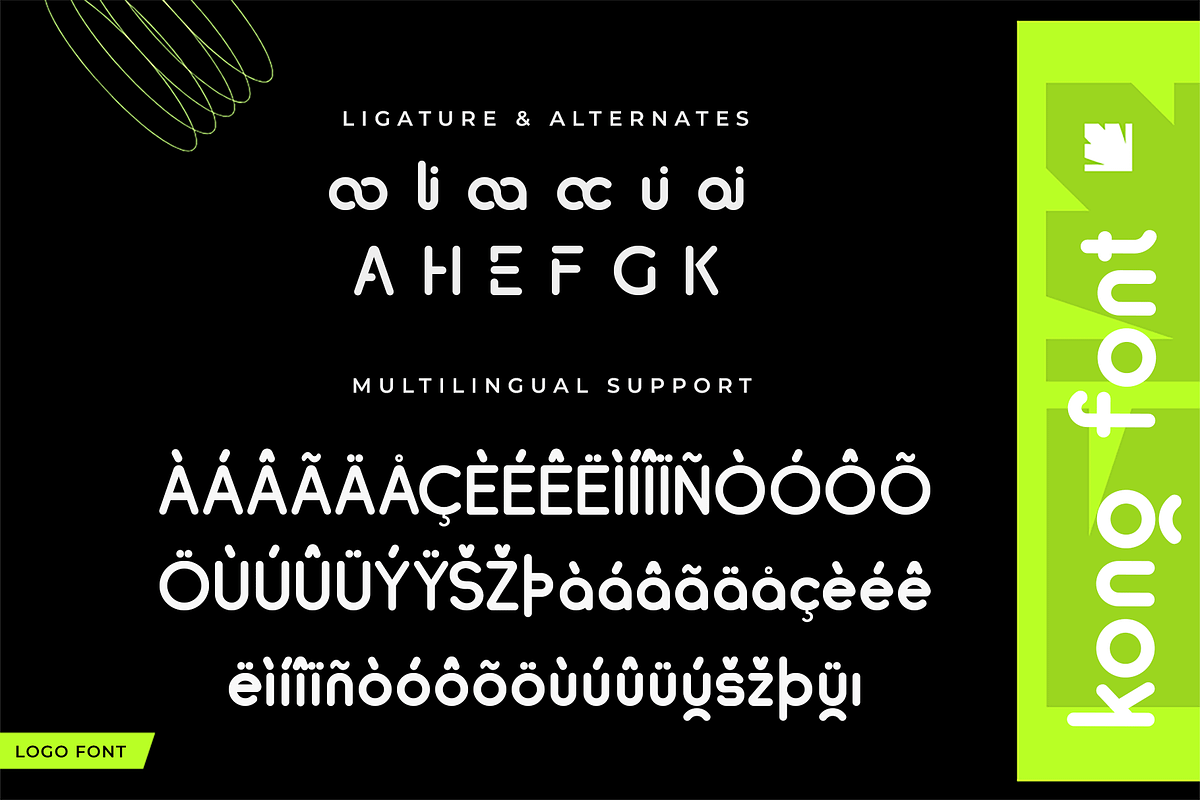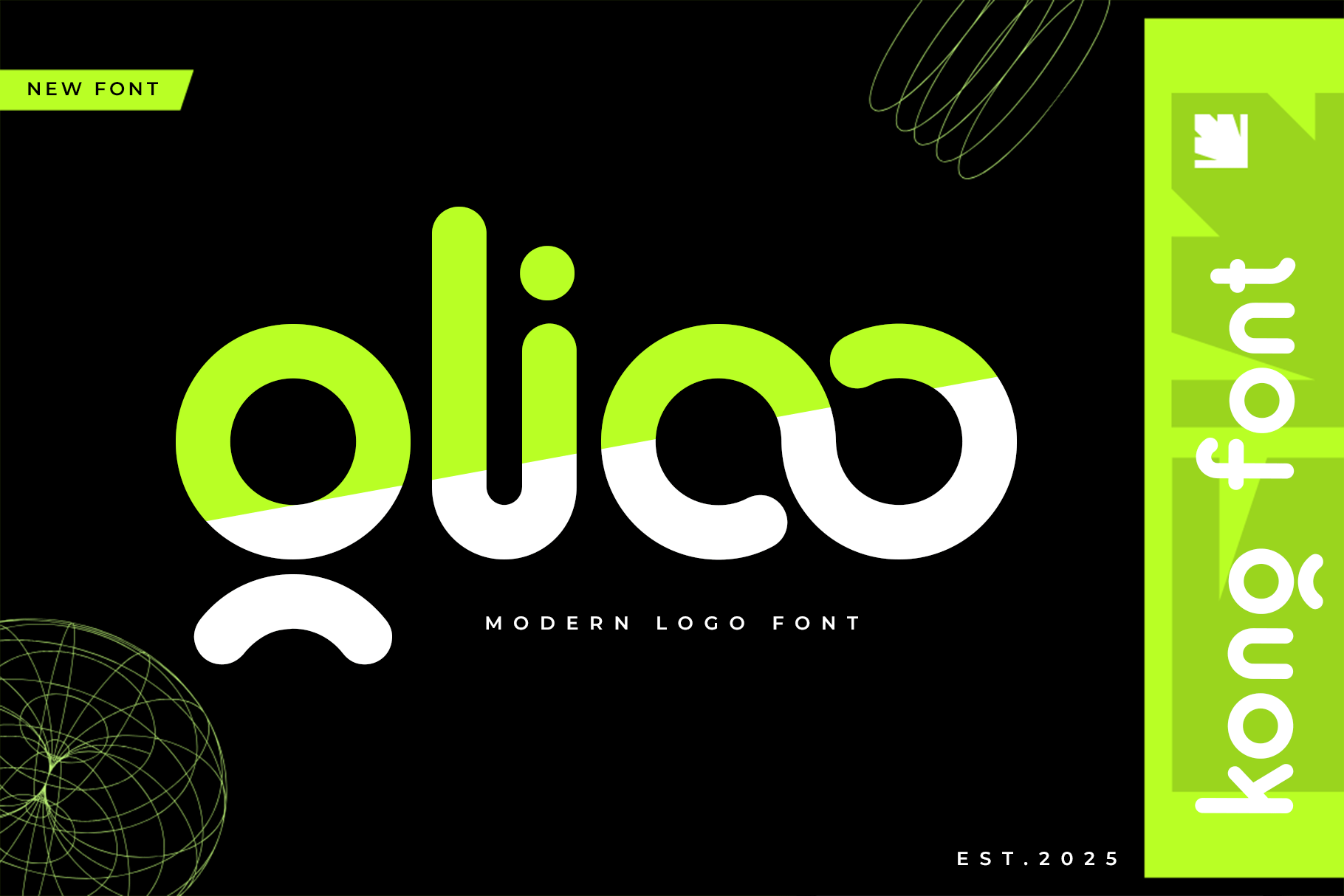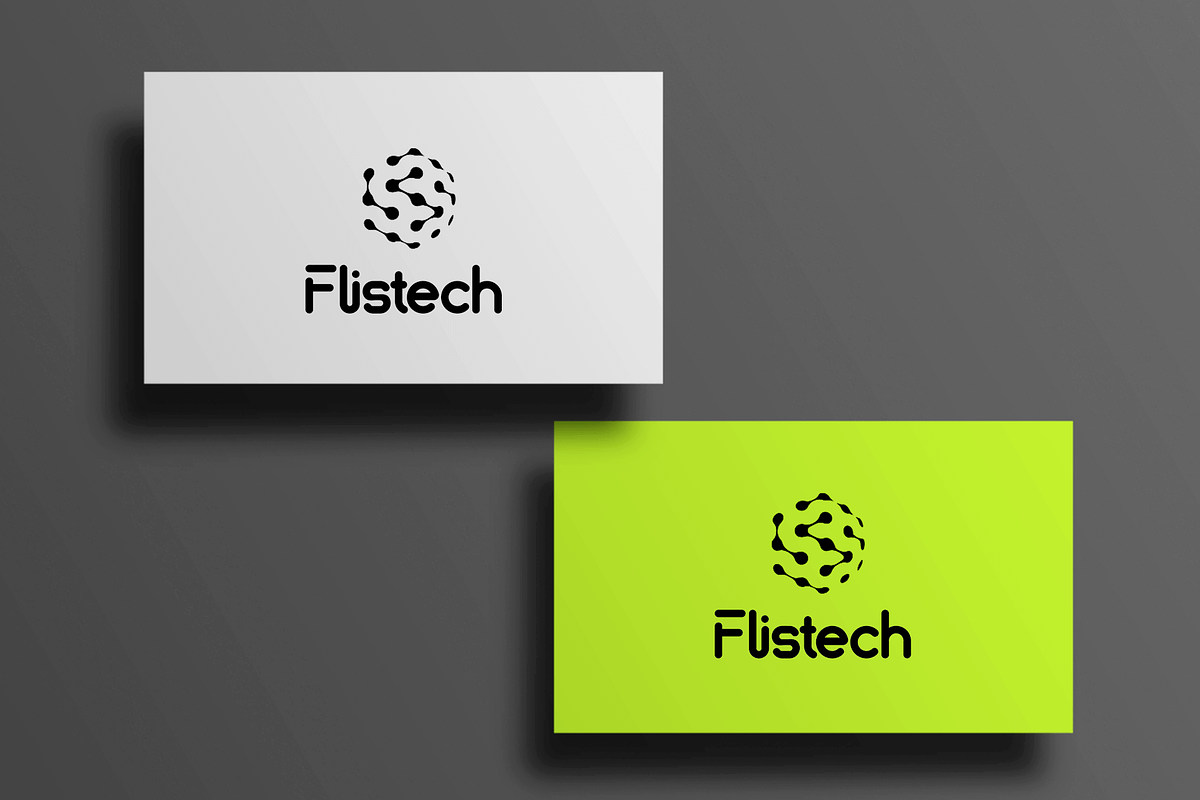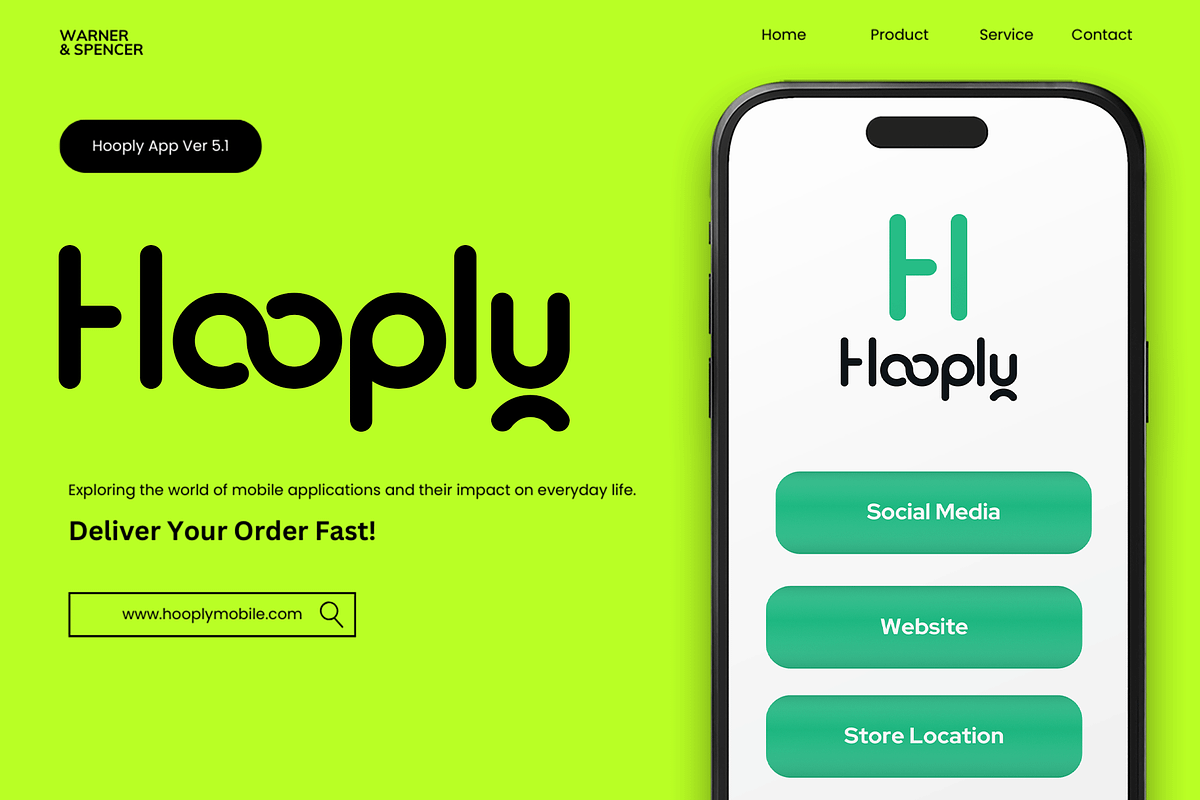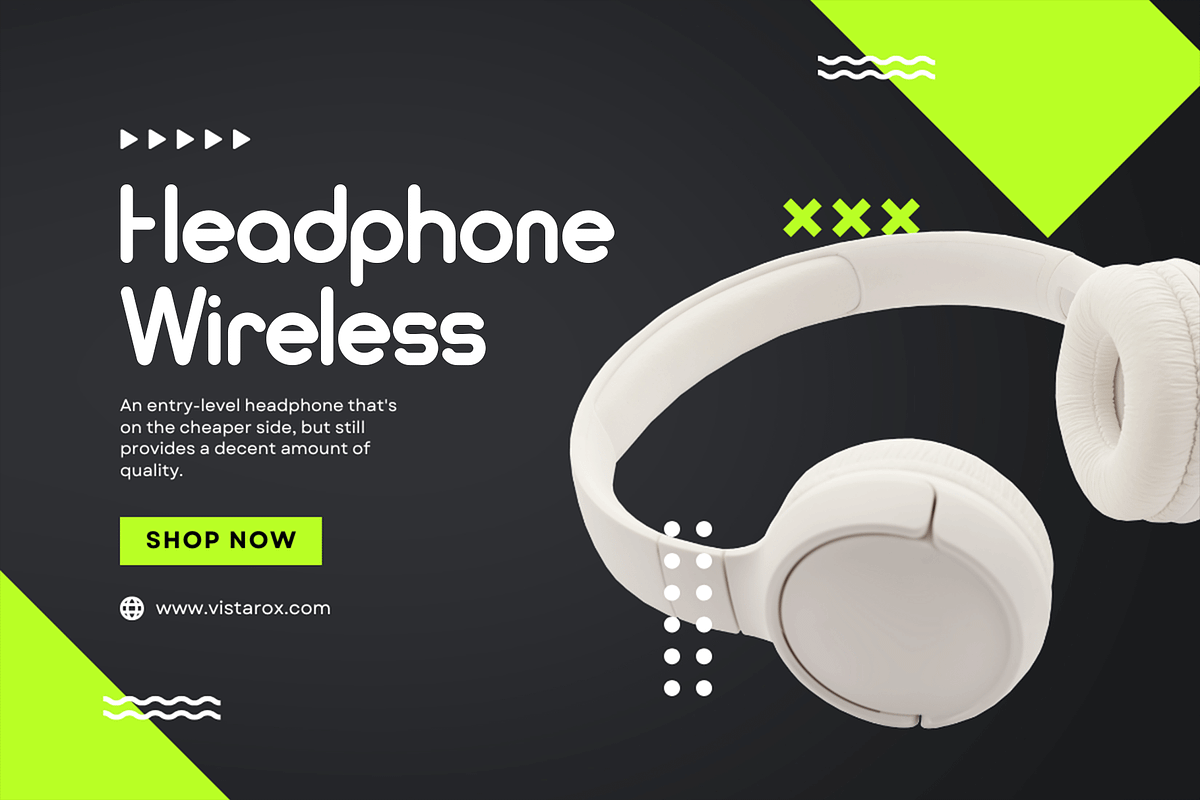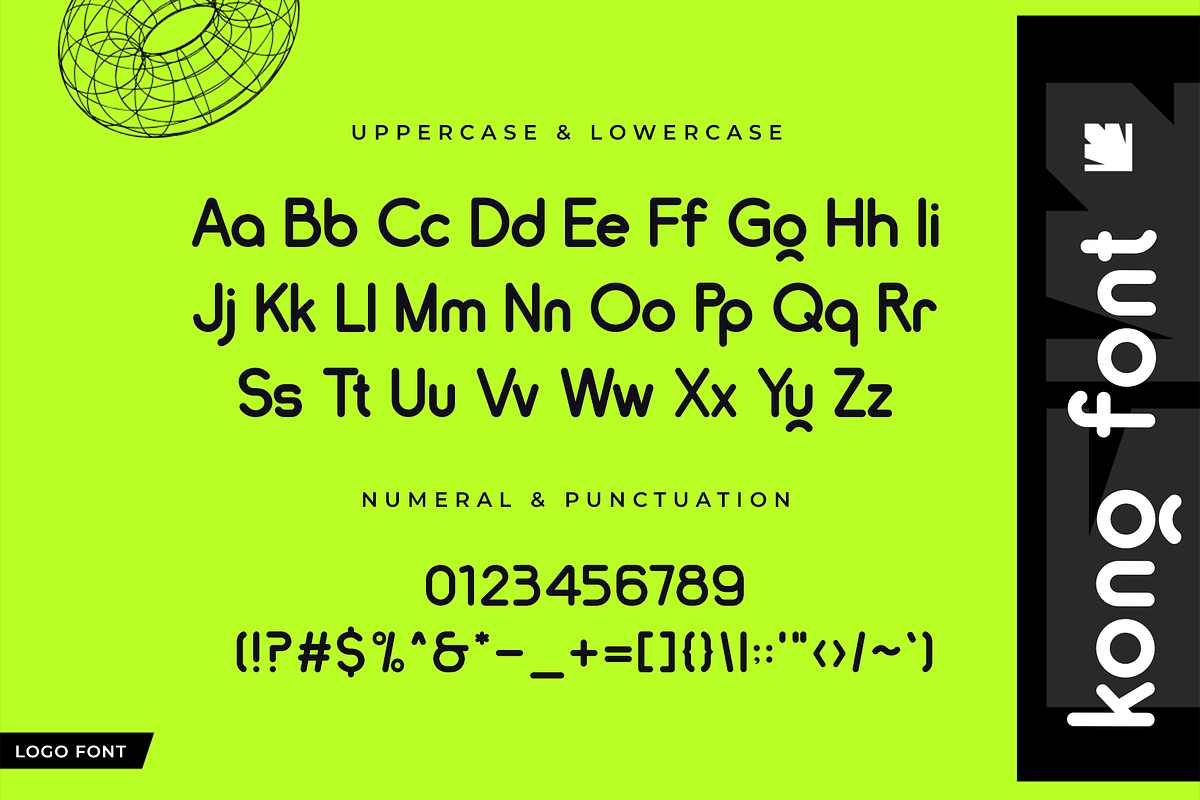
Glioo – Modern Logo Font
Say hello to Glioo, a modern logo font crafted to make your branding truly shine. With its bold, clean lines and unique character shapes, Glioo delivers a sleek, contemporary look that’s perfect for logos, headlines, packaging, and digital content. Its minimalistic yet striking design ensures maximum visual impact with effortless style.
Glioo is meticulously designed for readability and versatility, making it ideal for tech brands, creative studios, fashion labels, or anyone seeking a bold modern identity. Whether you're designing a brand mark, website header, or social media graphics, Glioo brings strength and clarity to your design work.
Glioo is the essential typeface for bold, modern, and unforgettable branding.